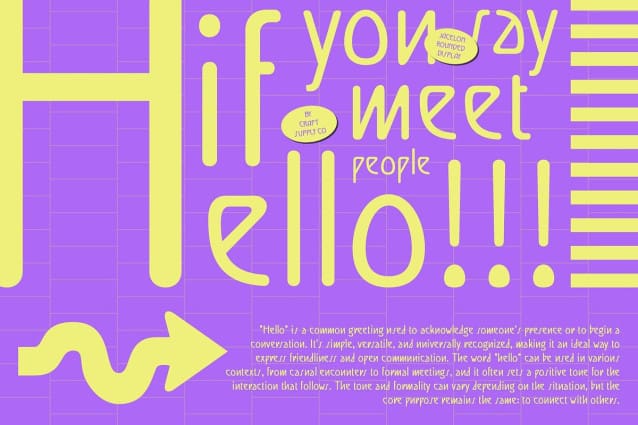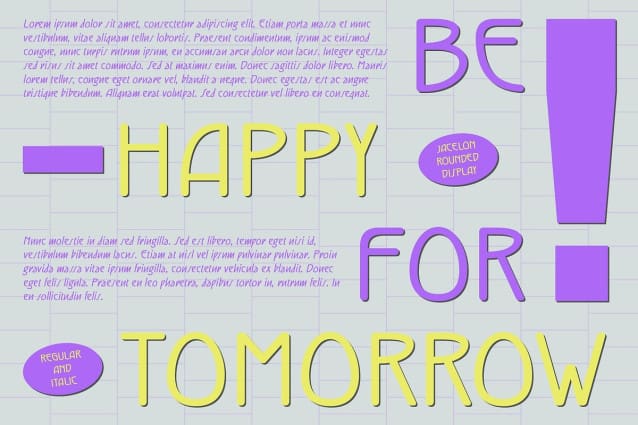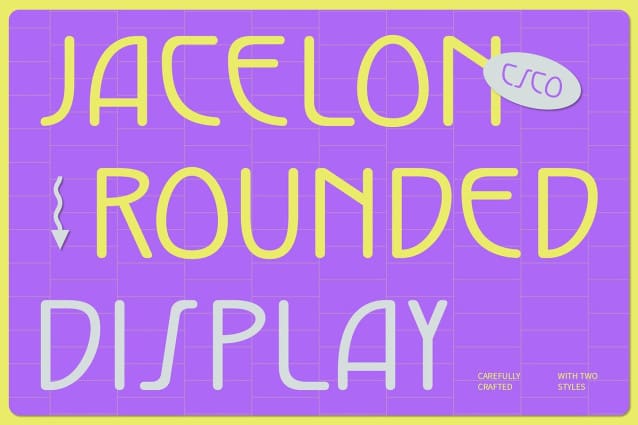
Jacelon Rounded Font
Jacelon Rounded Font is a modern display sans-serif font that masterfully combines Art Deco elegance with a warm, rounded design. The bold geometric forms characteristic of the Art Deco style infuse the font with a sense of luxury and sophistication, while the soft, rounded edges introduce a friendly, approachable touch.
Elegant and Luxurious The Art Deco influences in Jacelon Rounded bring a timeless elegance to its design. With sharp angles and clean lines, it evokes the opulence of the early 20th century, making it perfect for high-end branding and stylish promotional materials. This classic flair is balanced by modern sensibilities through its rounded contours, which soften the overall appearance and enhance readability.
Versatile and Captivating The fusion of retro Art Deco elements with contemporary rounded shapes results in a font that stands out in a variety of contexts. Whether used in branding, posters, or packaging, Jacelon Rounded offers a unique visual appeal that captures attention while remaining versatile. Its ability to bridge classic and modern design makes it ideal for projects aiming to convey both sophistication and approachability.